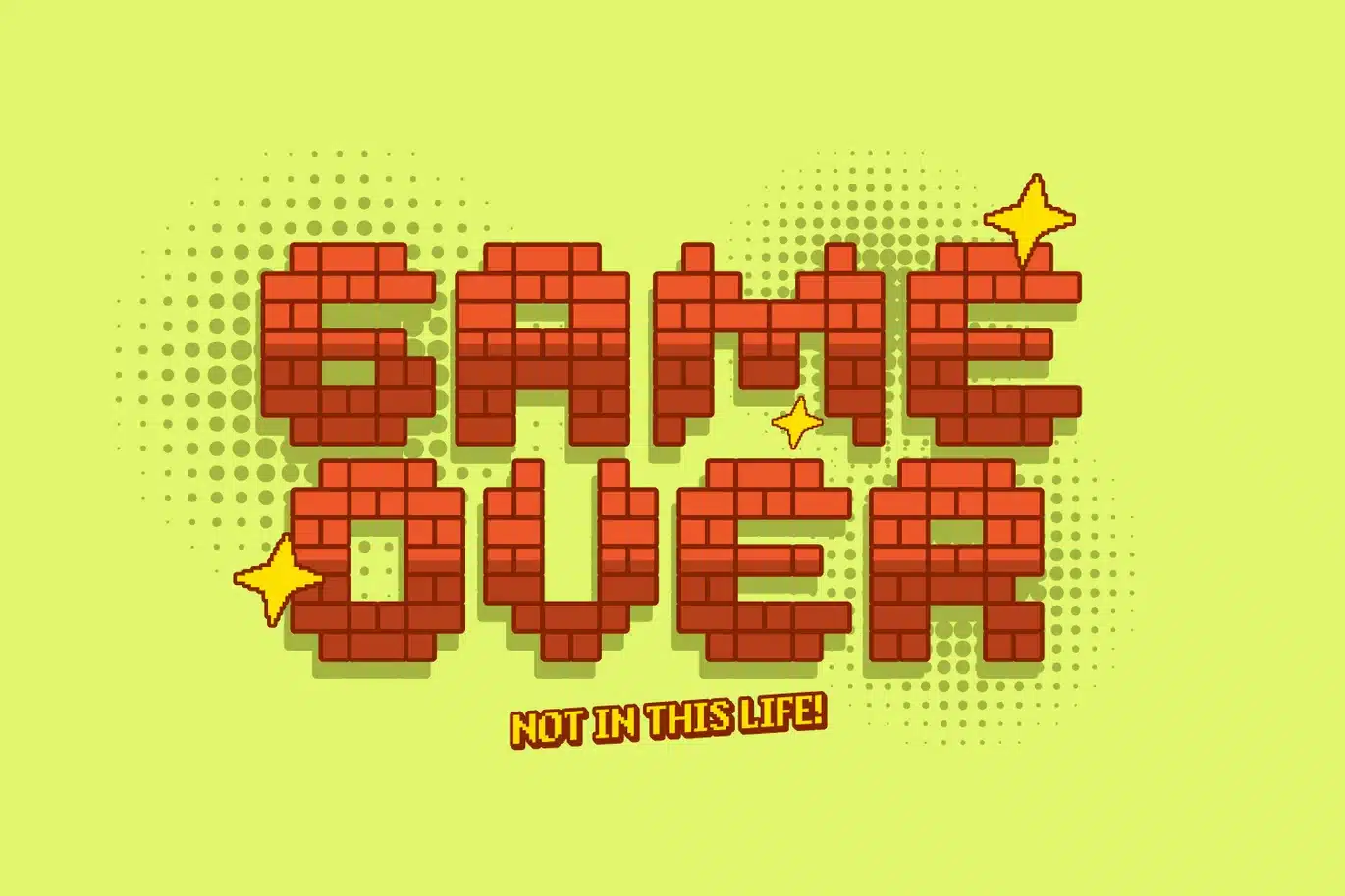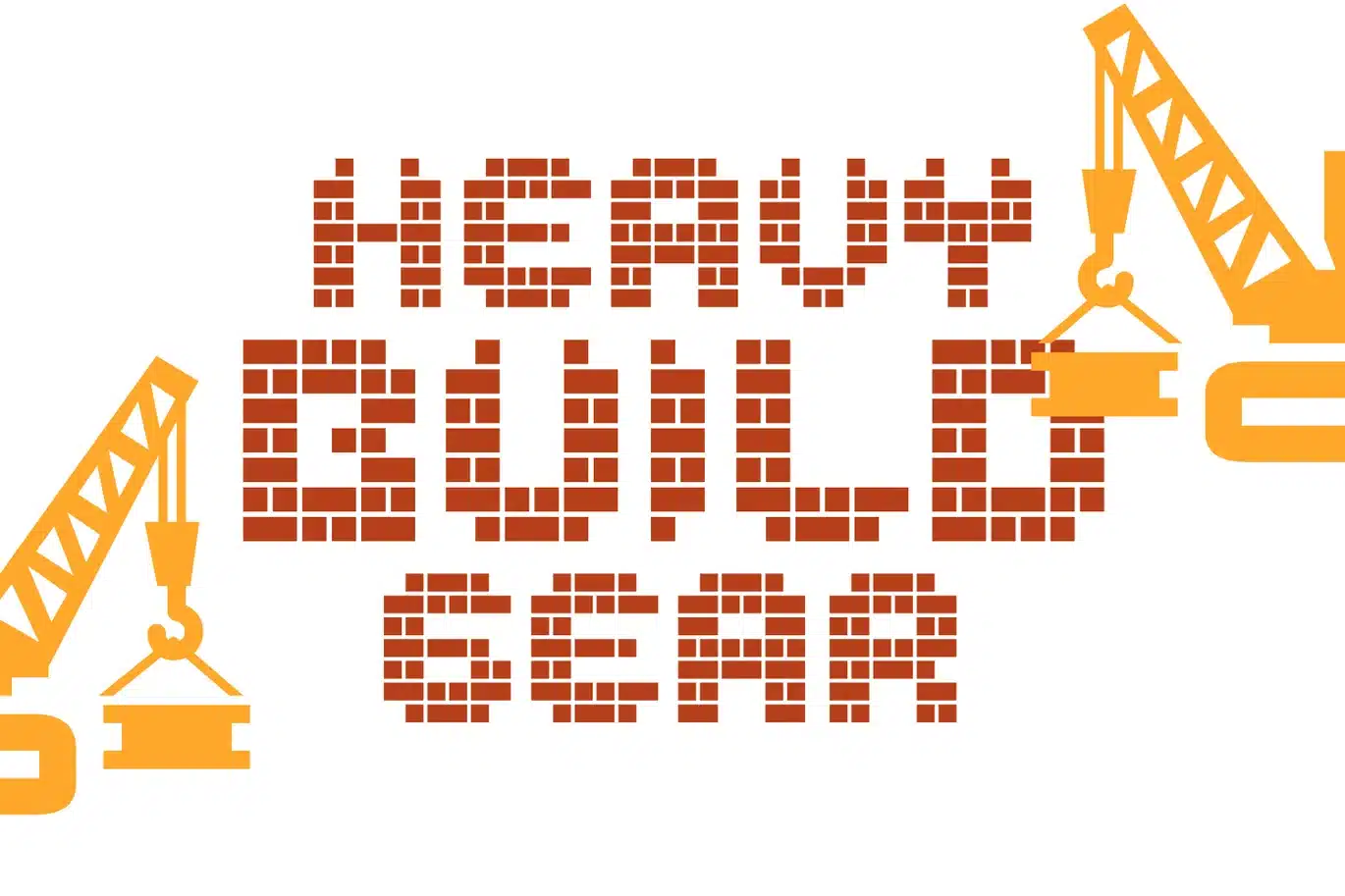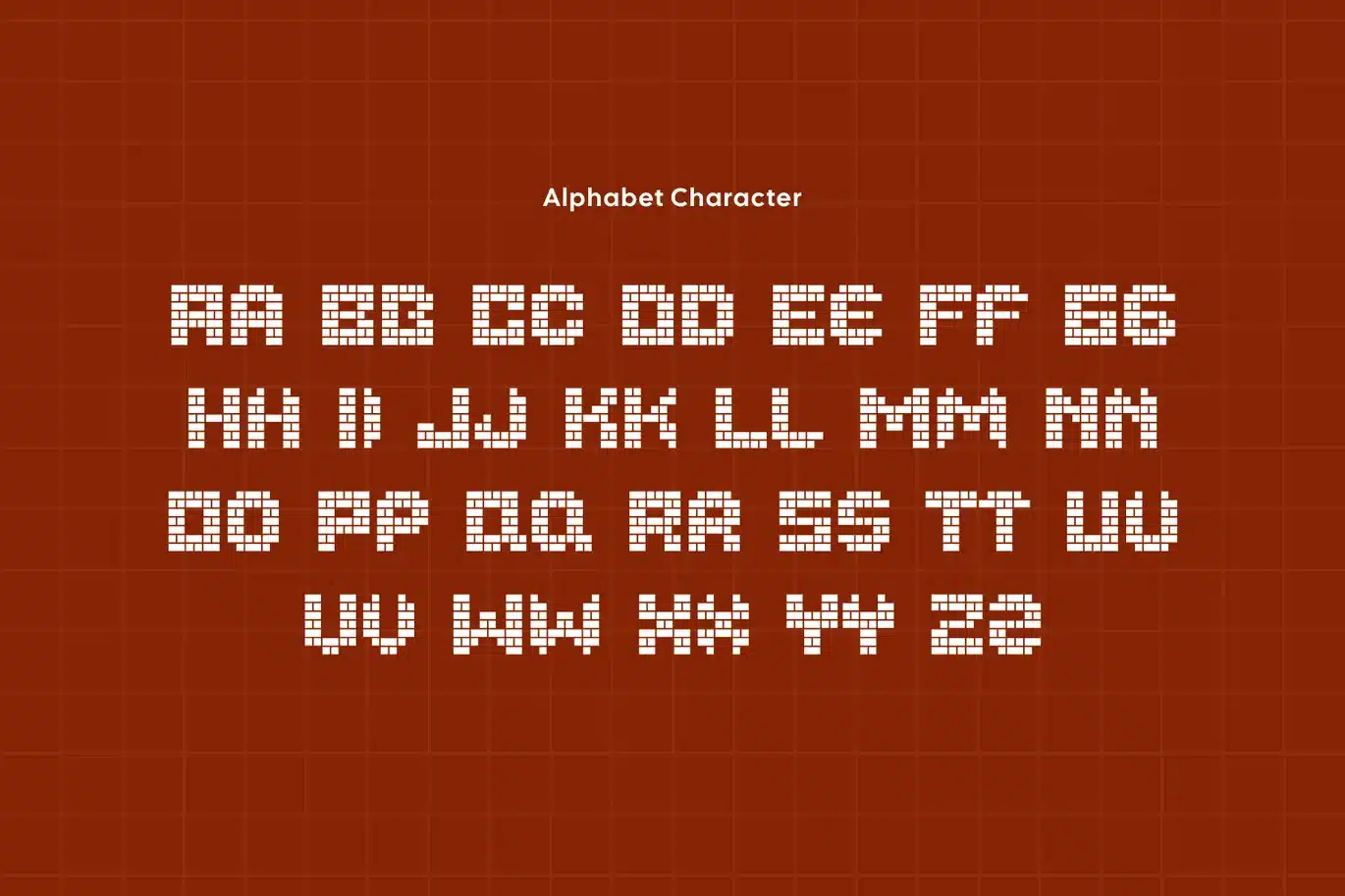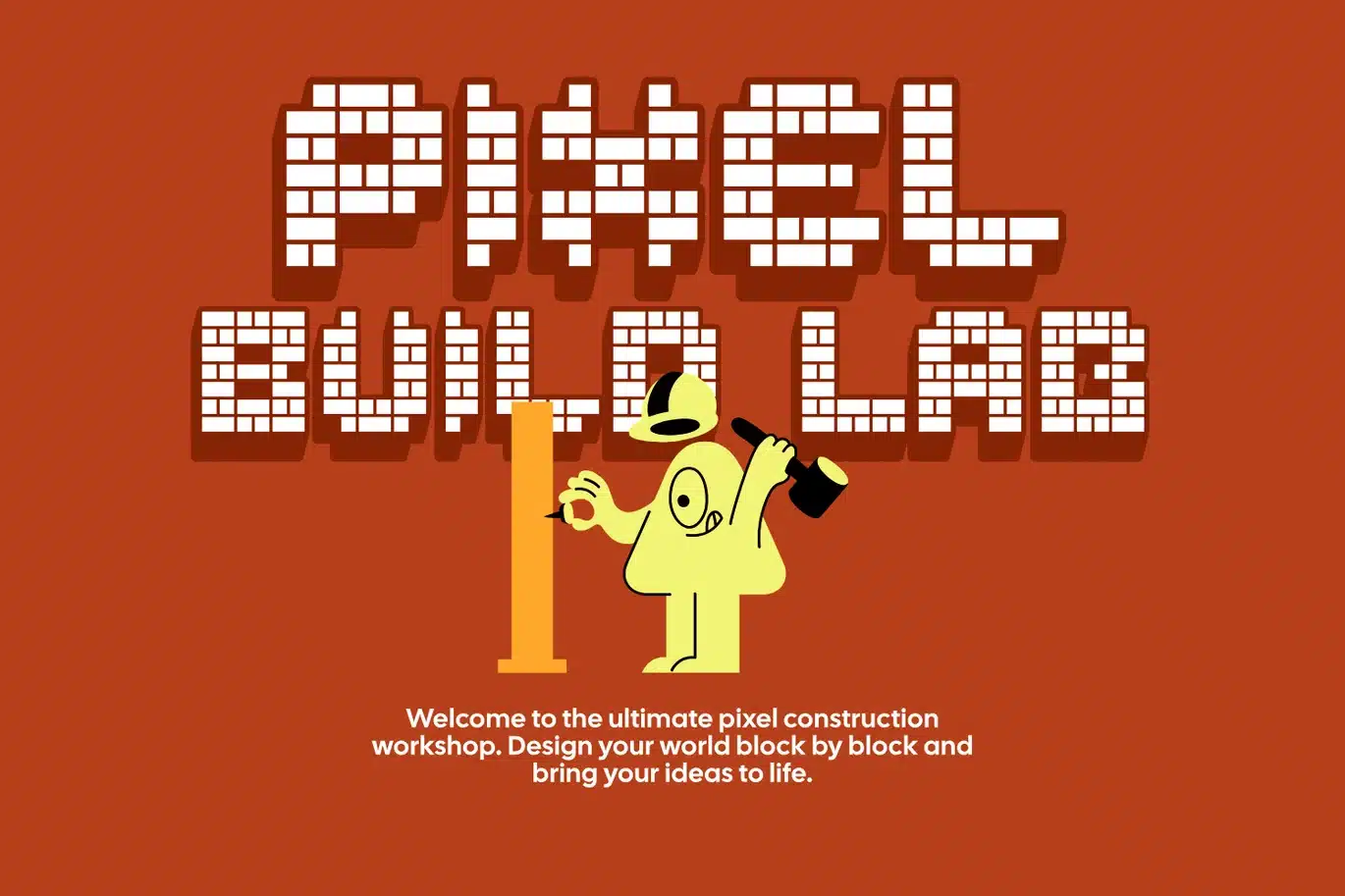
Pixel Bricke Font
Bricke is a pixel font that stands out with its unique block-based construction, inspired by classic bricke games and retro arcade visuals. Built from small rectangular units, this display font creates a strong and structured look that instantly feels nostalgic yet fresh. Its playful arrangement of pixel blocks gives it a dynamic rhythm, making it perfect for designs that want to capture the spirit of old-school gaming with a modern twist.
Designed for game titles, gaming graphics, UI layouts, and digital branding, Bricke delivers a bold and memorable presence. The font works exceptionally well for arcade-style concepts, puzzle game themes, and tech-inspired visuals that need both clarity and character. Whether you're building a retro game interface or crafting a standout gaming identity, Bricke offers a distinctive pixel font style that feels creative, engaging, and highly marketable.